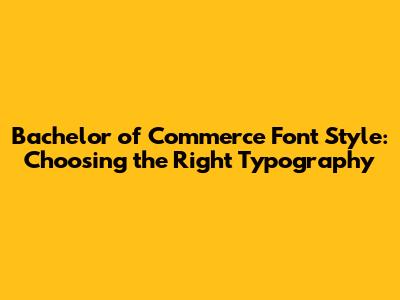
- Serif fonts are characterized by the small decorative strokes (serifs) at the end of each letter. They often convey a sense of tradition, authority, and sophistication, making them a great choice for formal documents and professional correspondence. Some popular serif fonts include:
- Times New Roman: A classic and widely recognized serif font. It is highly readable and suitable for large blocks of text. While some may consider it overused, it remains a safe and reliable option for formal documents.
- Georgia: Designed for on-screen readability, Georgia is a more modern serif font that works well in both print and digital formats. Its clear and open letterforms make it easy on the eyes.
- Baskerville: A refined and elegant serif font that exudes sophistication. It is often used in publishing and can add a touch of class to your B.Com documents.
- Sans-serif fonts lack the decorative strokes found in serif fonts, giving them a cleaner, more modern appearance. They are often used for headings, titles, and other short blocks of text where clarity and impact are essential. Some popular sans-serif fonts include:
- Arial: A widely used sans-serif font that is known for its simplicity and legibility. It is a safe and versatile option for a variety of B.Com documents.
- Helvetica: A classic sans-serif font that is highly regarded for its neutrality and clarity. It is often used in corporate branding and can lend a professional touch to your documents.
- Calibri: The default font in Microsoft Office, Calibri is a modern sans-serif font that is easy to read and visually appealing. It is a good choice for both body text and headings.
- Beyond the traditional serif and sans-serif categories, there are several other fonts that can be suitable for B.Com documents, depending on the specific context and style you are aiming for.
- Open Sans: A highly readable and versatile sans-serif font that is designed for use on websites and mobile devices. It is a good choice for online resumes and portfolios.
- Roboto: A modern sans-serif font that is clean, crisp, and highly legible. It is often used in user interfaces and can add a contemporary touch to your documents.
- Lato: A stylish sans-serif font that combines readability with a touch of personality. It is a good choice for documents that need to be both professional and visually appealing.
- A classic and effective font pairing strategy is to combine a serif font for the body text with a sans-serif font for the headings. This creates a visual contrast that helps to differentiate the headings from the body text, making the document easier to navigate.
- Example: Use Georgia for the body text and Arial for the headings.
- Another approach is to use different weights and styles of the same font family. For example, you could use a bold version of a font for the headings and a regular version for the body text. This creates a subtle but effective visual hierarchy that can improve the readability of your document.
- Example: Use Open Sans Bold for the headings and Open Sans Regular for the body text.
- When pairing fonts, it's important to consider both contrast and harmony. You want fonts that are different enough to create visual interest, but not so different that they clash or compete with each other. Look for fonts that share similar characteristics, such as x-height (the height of the lowercase letters) or stroke width, to create a sense of visual coherence.
- Example: Pair Lato with Montserrat. Both fonts have a similar geometric structure and a clean, modern appearance.
- One common mistake is to pair fonts that are too similar to each other. This can make the document look bland and uninspired. If you're going to use two different fonts, make sure they are distinct enough to be easily distinguishable.
- If you're not sure where to start, there are several online tools that can help you find font pairings. These tools allow you to experiment with different fonts and see how they look together before committing to a particular combination.
- FontPair: A website that offers curated font pairings for various design projects.
- Google Fonts: Google Fonts provides a vast library of free fonts and allows you to test different pairings directly on the website.
- For body text, a font size of 11 or 12 points is generally recommended. This size is large enough to be easily readable without being too large or distracting.
- For headings, you can use a slightly larger font size, such as 14 or 16 points, to create a visual hierarchy and make the headings stand out.
- For footnotes and captions, a smaller font size, such as 9 or 10 points, may be appropriate.
- Line spacing, also known as leading, is the vertical space between lines of text. Adequate line spacing can significantly improve the readability of your document by preventing the lines of text from appearing too crowded.
- A line spacing of 1.2 to 1.5 is generally recommended for body text. You may need to adjust the line spacing depending on the font and font size you are using.